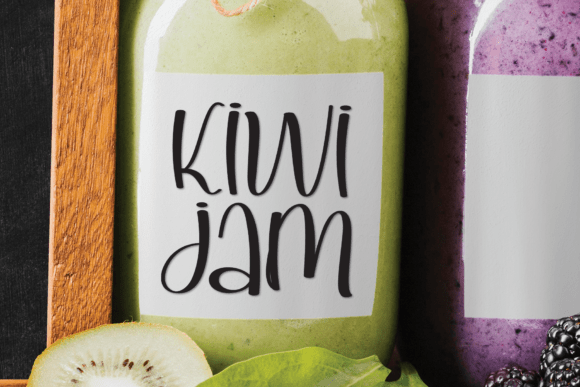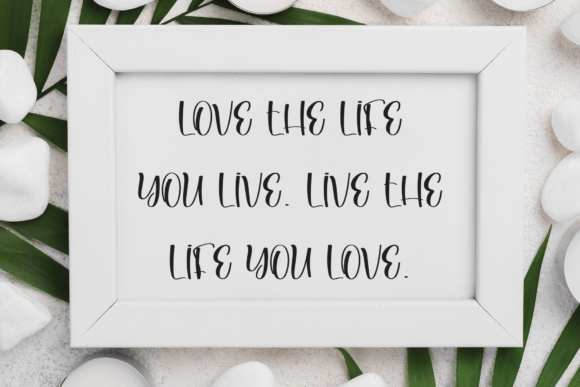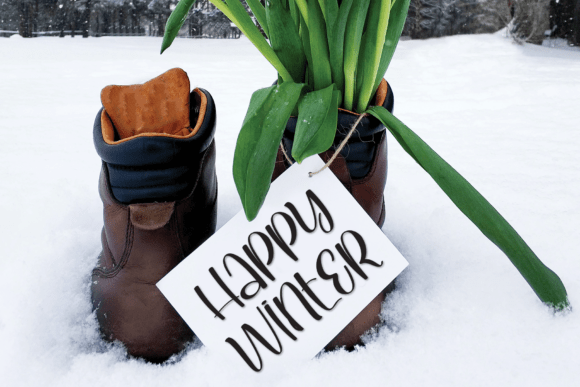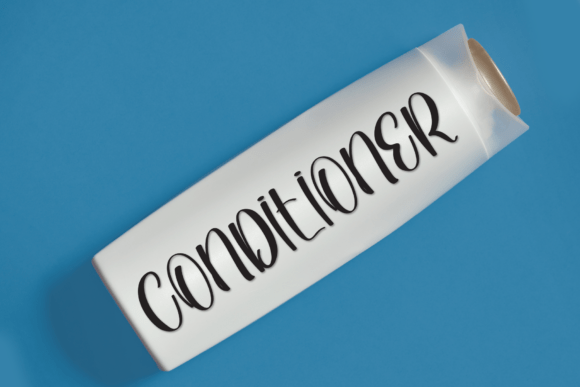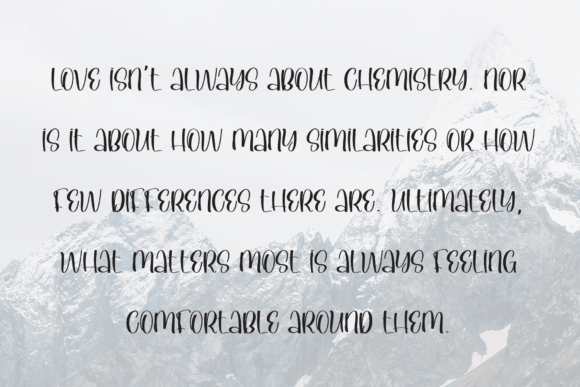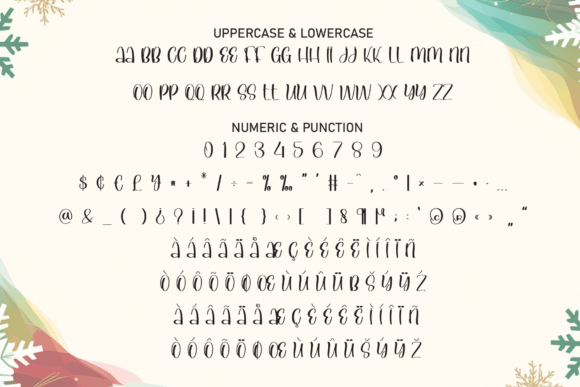
Reviving Holiday Cheer: The Christmas Comeback Font
It’s the most wonderful time of the year, and designers know that a festive font can make all the difference. As you’re brainstorming ideas for your holiday campaign, you find yourself scrolling through font libraries, searching for the perfect combination of style and charm. And then, you stumble upon it – Christmas Comeback Font, a delightful display font that embodies the essence of relaxed design.
This versatile font is designed to add a fresh and friendly touch to any project, from posters and branding to packaging and social media graphics. Its clean shapes, soft edges, and well-balanced letterforms make it an ideal choice for designers seeking a modern yet approachable vibe. Whether you’re working on a holiday promotion or simply want to inject some festive flair into your brand, Christmas Comeback Font is sure to deliver.
Key Features of Christmas Comeback Font
- Unique Characteristics: Features festive and playful letterforms, with intricate details and ornaments, perfect for holiday-themed designs
- Script and Language Support: Supports Latin, Cyrillic, and Greek scripts, with over 200 languages supported
- Font Style: Includes 3 font styles: Regular, Italic, and Bold, to cater to various design needs
Designer Review: Christmas Comeback Font
I recently had the chance to review the “Christmas Comeback Font” and I’m here to give you my honest opinion.
- The font has a clear and festive vibe, perfect for the holiday season.
- The design is bold and eye-catching, making it ideal for headings and titles.
- The font family includes a range of weights, from light to bold, allowing for flexibility in design.
- The characters are well-formed and easily readable, even at smaller sizes.
- The font may be too bold for some designs, making it difficult to pair with other fonts.
- The font family is relatively small, with only a few styles available.
- The font may not be suitable for body text, as it can be overwhelming for large amounts of text.
Overall, I think the “Christmas Comeback Font” is a great addition to any designer’s toolkit, but it’s best suited for specific uses. With its bold and festive design, it’s perfect for headings, titles, and other promotional materials. However, it may not be the best choice for body text or more subtle designs.
Practical Application Guide: Christmas Comeback Font
For the most effective use of Christmas Comeback Font, use it in festive projects such as:
Christmas cards, invitations, and gift tags.
Holiday-themed social media graphics and ads.
Party and event decorations, such as banners and signs.
Remember to pair the font with complementary colors and graphics to create a cohesive and festive design.
Alternatives to “Christmas Comeback Font” for Designers
Great Vibes Font is a beautiful, handwritten font that is perfect for creating a festive and fun atmosphere. It’s ideal for use in holiday card designs, invitations, and social media posts. Great Vibes Font is more elegant and refined compared to Christmas Comeback Font, making it suitable for more formal designs.
Carolyna Pro Font is a modern, elegant script font that is great for adding a touch of sophistication to holiday designs. It’s perfect for use in wedding invitations, holiday cards, and advertising materials. Carolyna Pro Font is more polished and refined compared to Christmas Comeback Font, making it suitable for high-end designs.
Pacifico Font is a beautiful, handwritten font that is perfect for creating a relaxed and casual atmosphere. It’s ideal for use in holiday-themed social media posts, blog articles, and advertising materials. Pacifico Font is more laid-back and casual compared to Christmas Comeback Font, making it suitable for designs that require a more relaxed tone.
Alex Brush Font is a elegant, handwritten font that is perfect for creating a sophisticated and luxurious atmosphere. It’s ideal for use in high-end holiday designs, such as luxury gift boxes, invitations, and advertising materials. Alex Brush Font is more refined and elegant compared to Christmas Comeback Font, making it suitable for designs that require a touch of luxury.